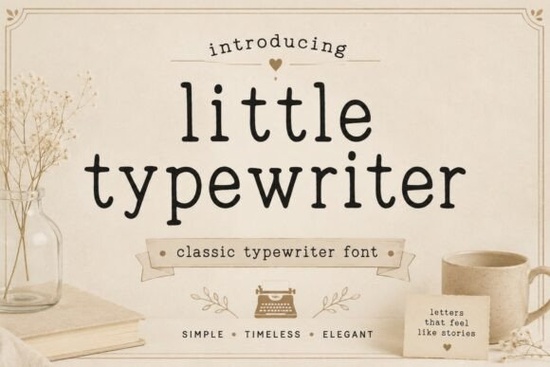
If you’ve ever wanted to add a touch of vintage charm to your designs without going over the top, the Little Typewriter Font might be exactly what you’re looking for. It’s not just another retro typeface it’s carefully crafted to mimic the gentle quirks of real typewriter output, from slightly uneven letter spacing to subtle ink variations. Whether you’re designing wedding invitations, journal covers, or printable quote cards, this font brings warmth and authenticity that feels personal, not generic.
What makes Little Typewriter stand out from other vintage fonts?
Many “typewriter” fonts aim for mechanical precision, but Little Typewriter leans into the human side of old machines. Its characters include soft imperfections like faint smudges or slight misalignments that echo how actual typewriters aged with use. This gives your text a lived-in, hand-typed feel, even when printed digitally. Unlike rigid monospaced fonts, it balances nostalgia with readability, making it suitable for both headlines and short paragraphs.
It pairs especially well with minimalist layouts or textured backgrounds (think kraft paper, linen, or faded watercolor washes). And because it’s clean enough for modern contexts, it doesn’t lock you into a purely retro aesthetic you can mix it with contemporary elements for contrast.
Who should use this font?
This font shines for:
- Print-on-demand sellers creating mugs, notebooks, or wall art with motivational quotes or literary themes.
- Small business owners designing branding materials like logo wordmarks, packaging labels, or thank-you cards that need a personal, artisanal vibe.
- Scrapbookers and crafters adding journaling strips or title banners to memory books.
- Blogger and content creators looking for a distinctive header style for newsletters or social graphics.
If your project benefits from a sense of sincerity like handwritten notes or indie book publishing Little Typewriter adds character without overwhelming your message.
How does it compare to other script and display fonts?
While Happy Saturday leans playful and bouncy, and Amsterdam offers elegant calligraphy, Little Typewriter occupies a quieter, more grounded space. It’s not swirly or decorative; instead, it’s functional with soul. Similarly, fonts like Rainbow Candy or Sunshine Lemons bring bright, cheerful energy, whereas Little Typewriter evokes rainy-day reading nooks and coffee-stained pages.
For those who love structured yet expressive type, Arkina Duo blends serif and sans-serif styles but if you’re after something that feels like it came straight from a 1940s desk drawer, Little Typewriter delivers that specific mood better than most.
Tips for using Little Typewriter effectively
- Avoid long blocks of text. Like most display fonts, it’s best used for titles, short quotes, or accent lines.
- Pair it with a simple sans-serif. Try combining it with neutral fonts like Helvetica, Lato, or Montserrat for body text to keep your layout balanced.
- Add texture intentionally. A subtle paper grain or light ink bleed effect in your background can enhance the vintage illusion without competing with the font.
- Use uppercase sparingly. The lowercase letters carry more personality reserve all-caps for very short phrases like “EST. 1992” or “THE END.”
If your next project calls for quiet nostalgia, thoughtful craftsmanship, or a hint of literary charm, Little Typewriter is a reliable choice that won’t date quickly. It’s versatile enough for commercial use (always check the license details) and works across digital and print formats.
- Confirm your project aligns with the font’s mood cozy, sincere, understated.
- Test it with your actual content (not just “Lorem ipsum”) to see how it reads at different sizes.
- Check if you need additional weights or language support some versions include extended glyphs.
- Pair it thoughtfully; avoid combining it with other highly stylized fonts.